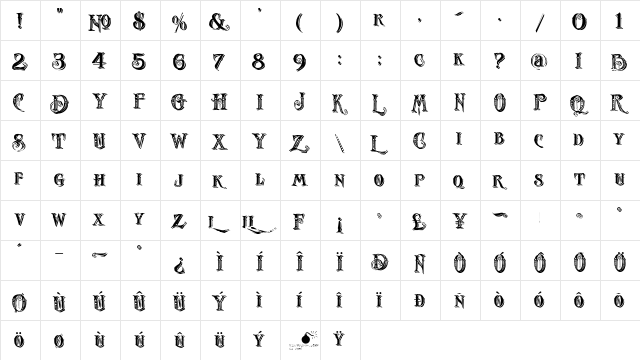
LHF Antique Shop Fancy Regular
| Foundry | Chuck Davis for Letterhead Fonts |
| Designer | Chuck Davis |
Design Context for LHF Antique Shop Fancy Typeface
LHF Antique Shop Fancy has the warm character of retro typography — evoking diners, record sleeves, and the golden age of print advertising.
Perfect for vintage-inspired branding, retro packaging, nostalgia campaigns, and period-accurate editorial design.
Font Pairing: Combine LHF Antique Shop Fancy with a simple slab or neutral sans — period-accurate companions reinforce the vintage feel without competing for attention.
Pro Tip: Use LHF Antique Shop Fancy for headlines and pull quotes rather than body copy — its personality is best appreciated in short, focused bursts.